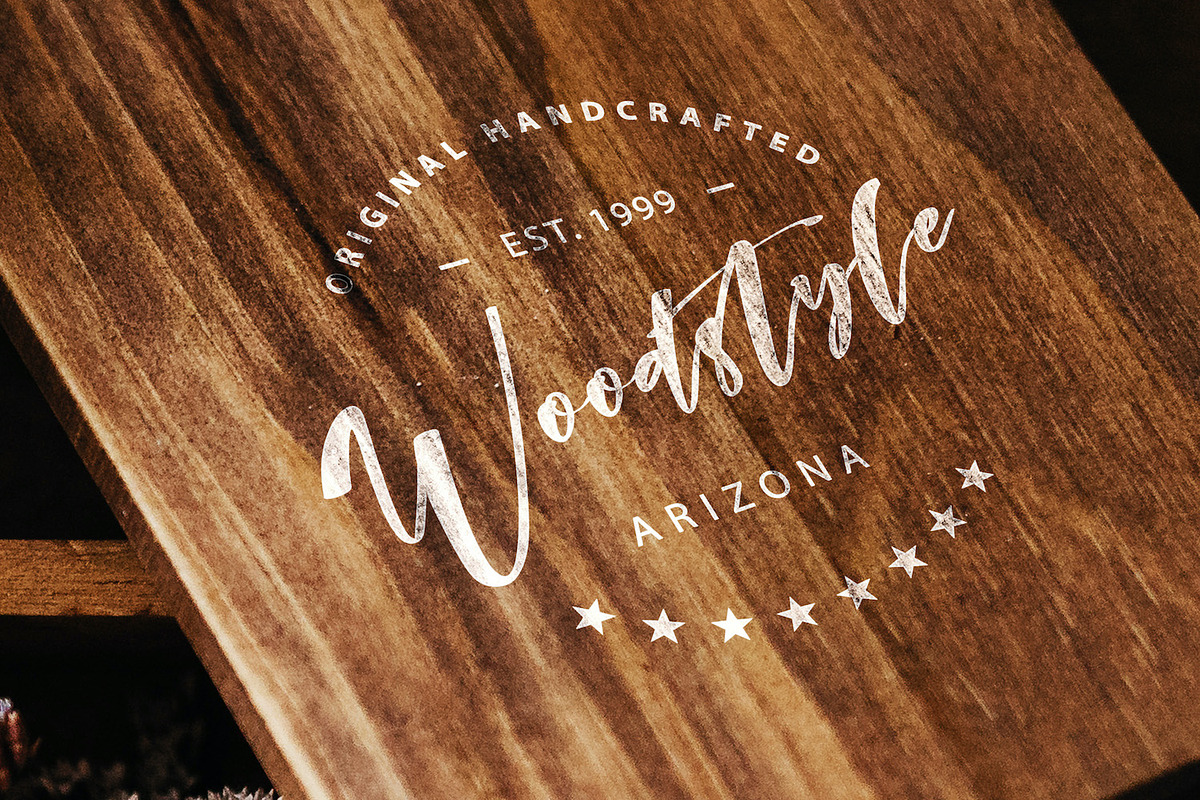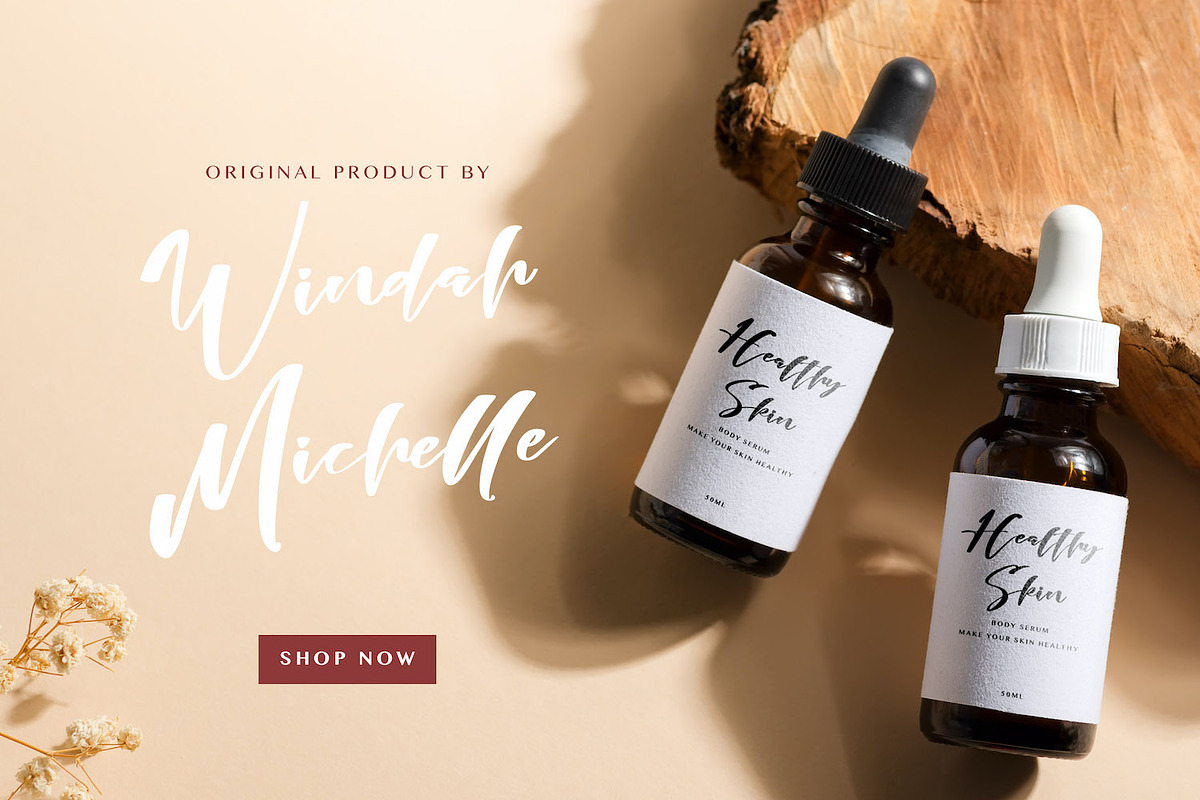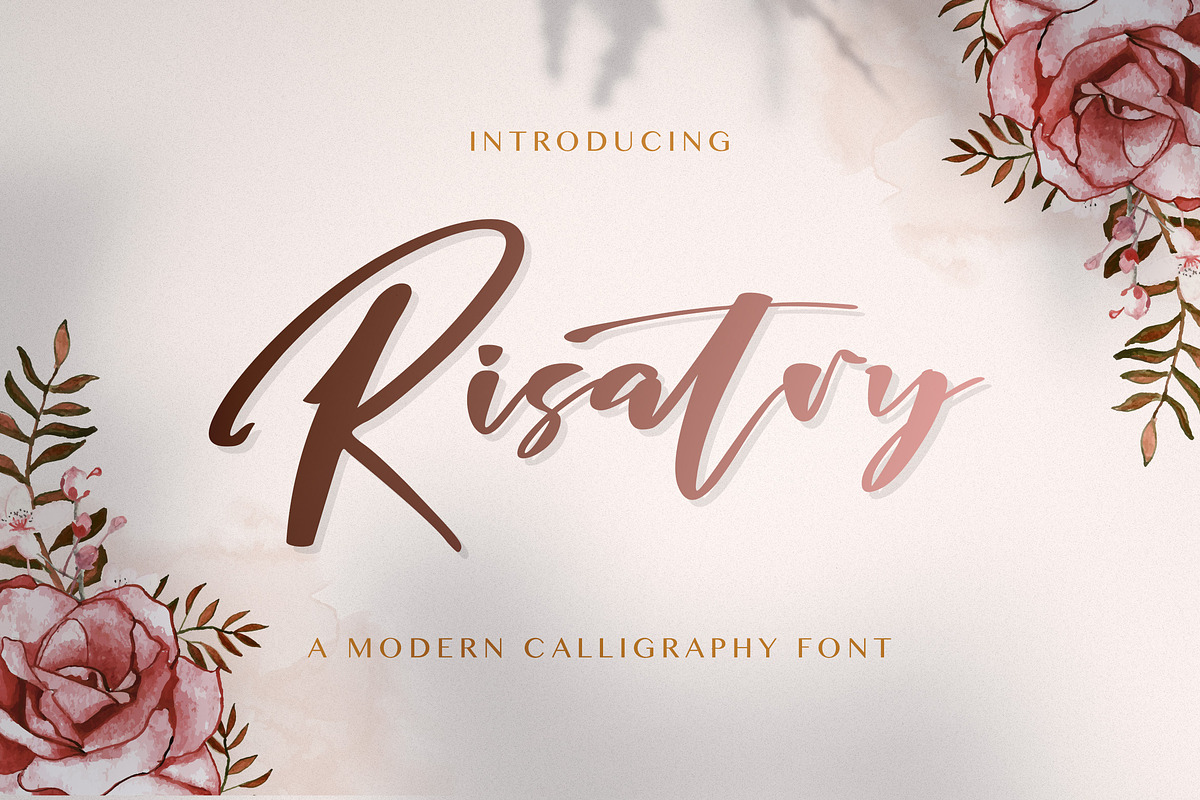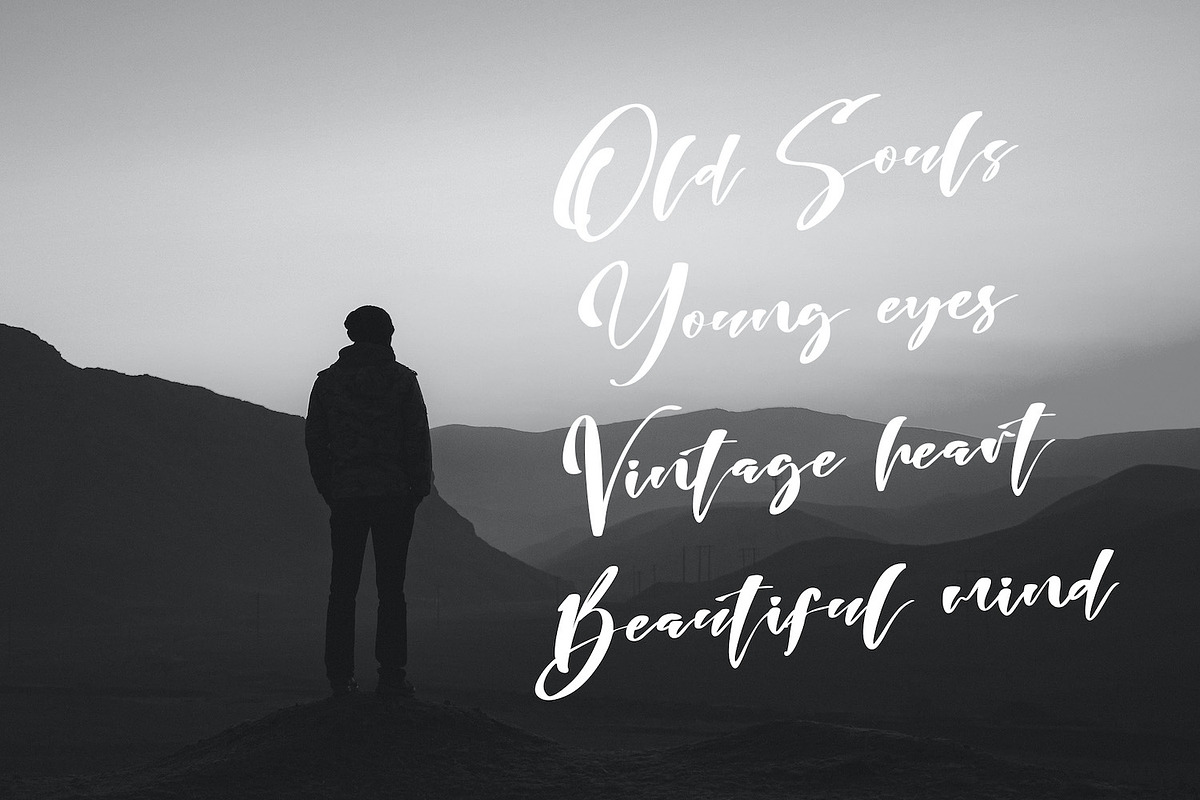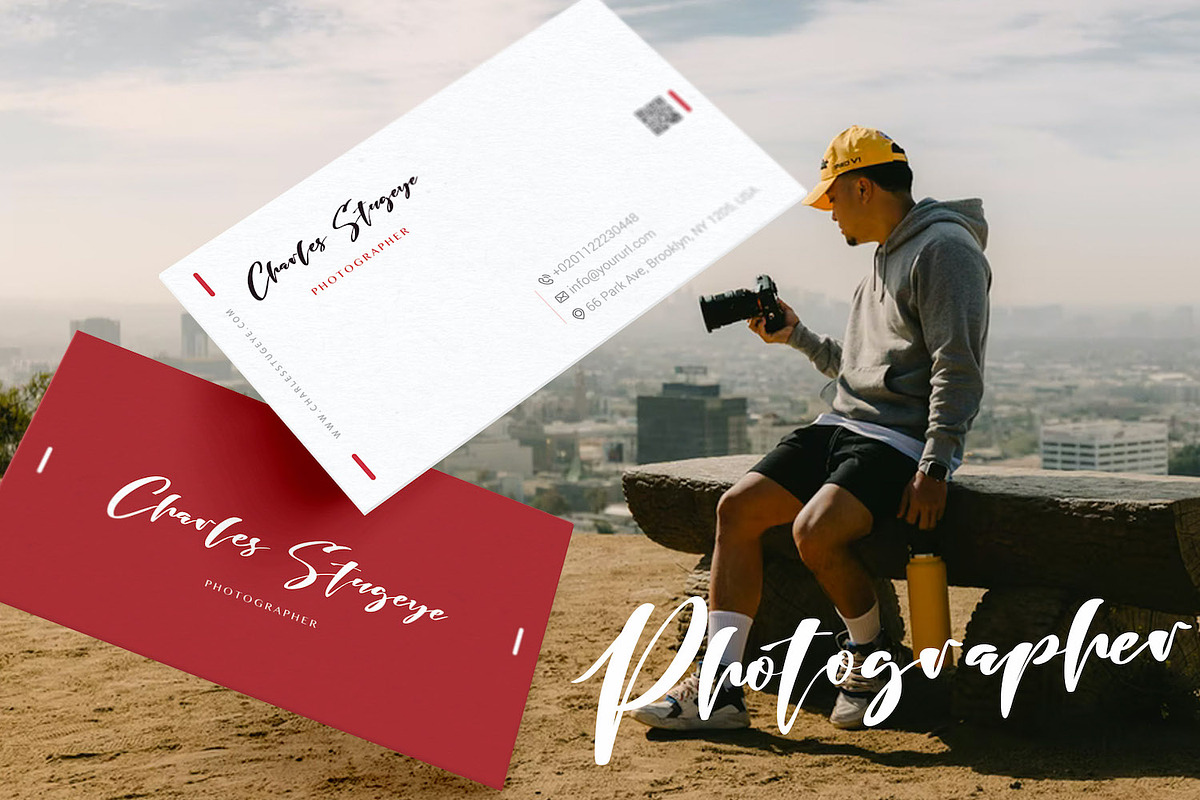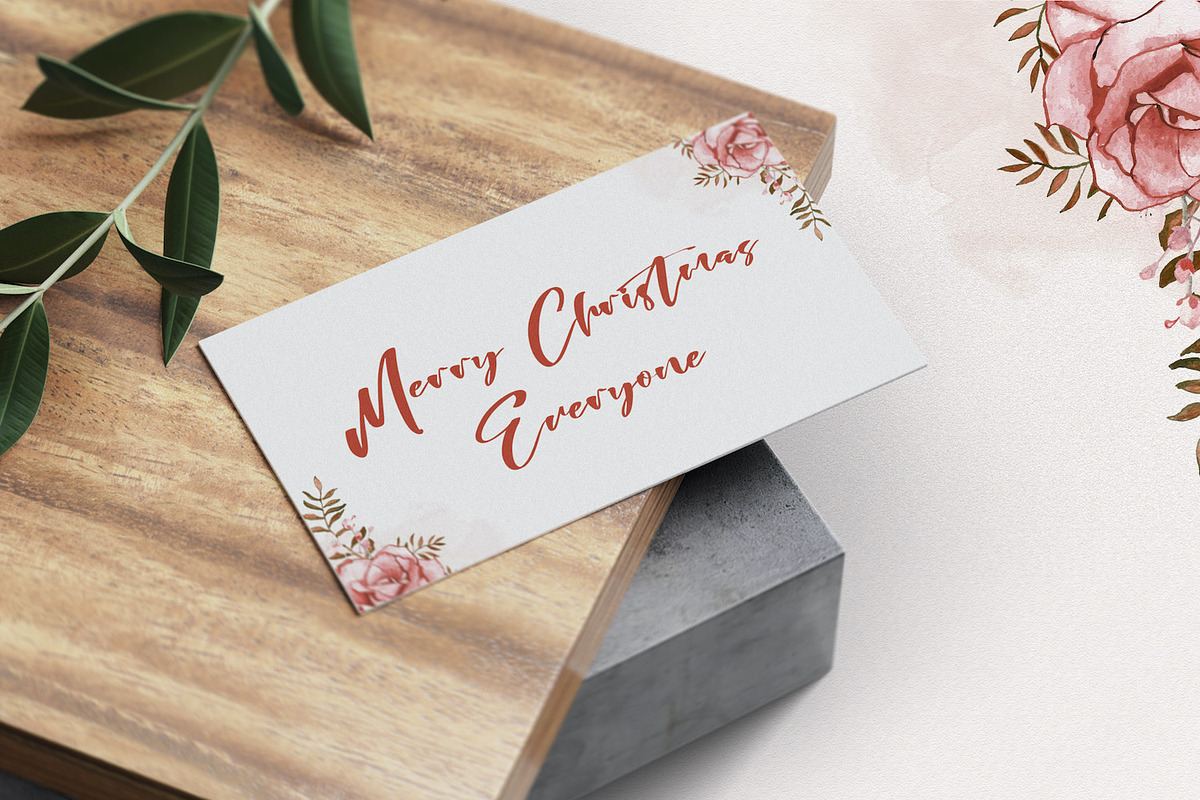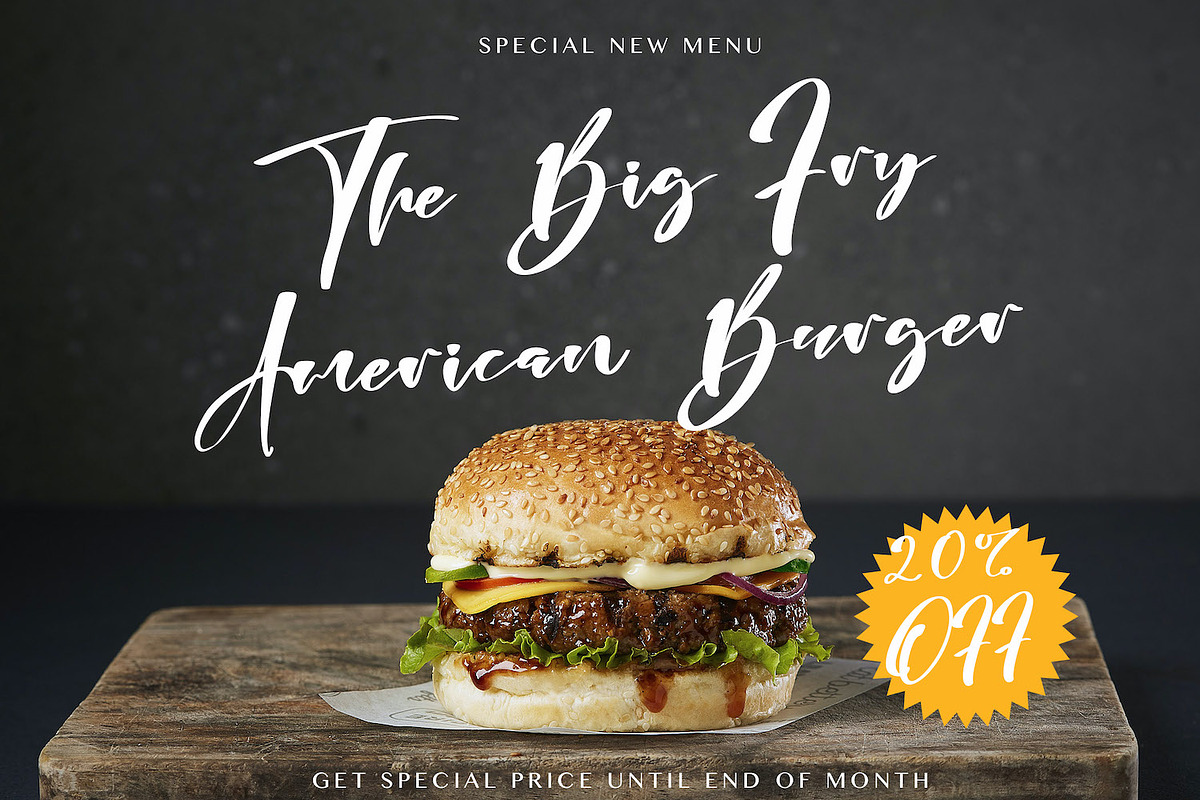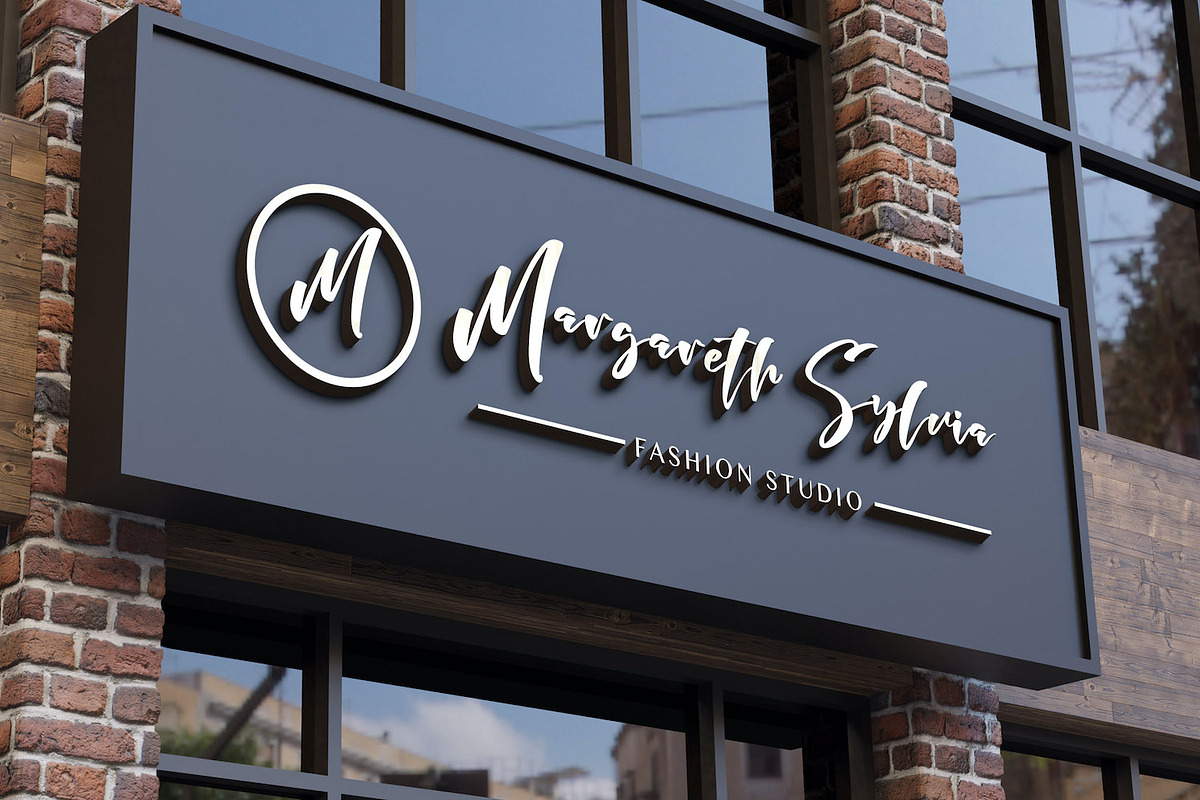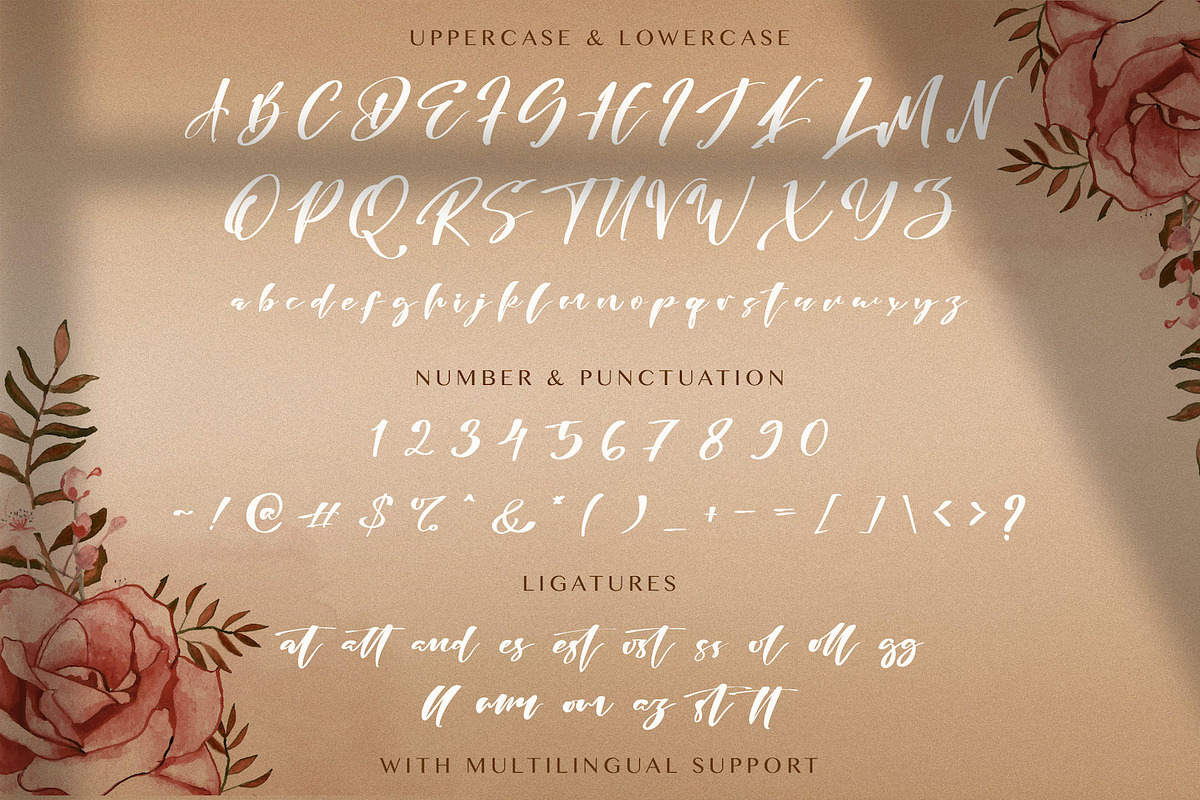
Risatry - Calligraphy Font
Introducing Risatry - Calligraphy Font
Risatry is an exquisite handwritten font, masterfully designed to become a true favorite. It maintains its classy calligraphic influences while feeling contemporary and fresh. Fall in love with it and bring your projects to the highest levels!